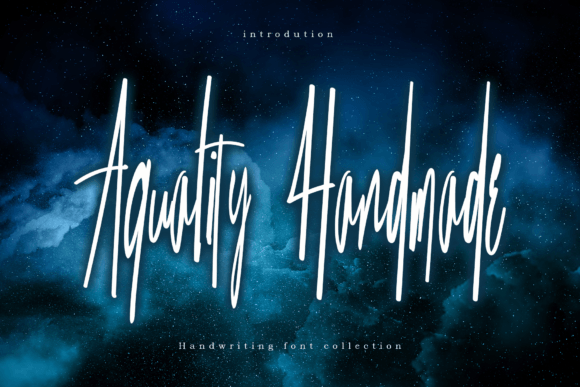
Embark on a Typographic Odyssey with Aquality Handmade Font: A Symphony of Elegance and Playfulness for Your UI Designs
In the realm of digital artistry, fonts hold the power to transform the mundane into the magnificent. They are the unsung heroes of user interfaces, the invisible architects that shape our online experiences. Enter Aquality Handmade Font, a captivating creation from the visionary minds at Preketek Texs.
Aquality Handmade is not just a font; it's an experience. It's a symphony of elegance and playfulness that dances across your screen, leaving a trail of visual delight in its wake. Inspired by the beauty of handwritten notes and the charm of playful scribbles, this font exudes a warmth and personality that is simply irresistible.
With its graceful curves and whimsical flourishes, Aquality Handmade effortlessly elevates any UI design to new heights. It's a font that speaks to the heart, evoking a sense of nostalgia and childlike wonder. Whether you're crafting a website, designing an app, or creating social media graphics, Aquality Handmade will add a touch of magic to your work.
But what truly sets Aquality Handmade apart is its versatility. Like a chameleon in the digital jungle, this font adapts seamlessly to a wide spectrum of design styles. From playful and whimsical to elegant and sophisticated, Aquality Handmade has the uncanny ability to complement any aesthetic, enhancing it with its unique charm.
So, if you're seeking a font that will captivate your audience, ignite their imagination, and leave a lasting impression, then look no further than Aquality Handmade. It's the perfect choice for designers who want to create UIs that are both visually stunning and emotionally engaging.
Don't let your designs settle for mediocrity. Embrace the transformative power of Aquality Handmade Font and watch as your creations blossom into masterpieces. Experience the joy of typography and let your imagination run wild. Aquality Handmade is your gateway to a world of visual delight.